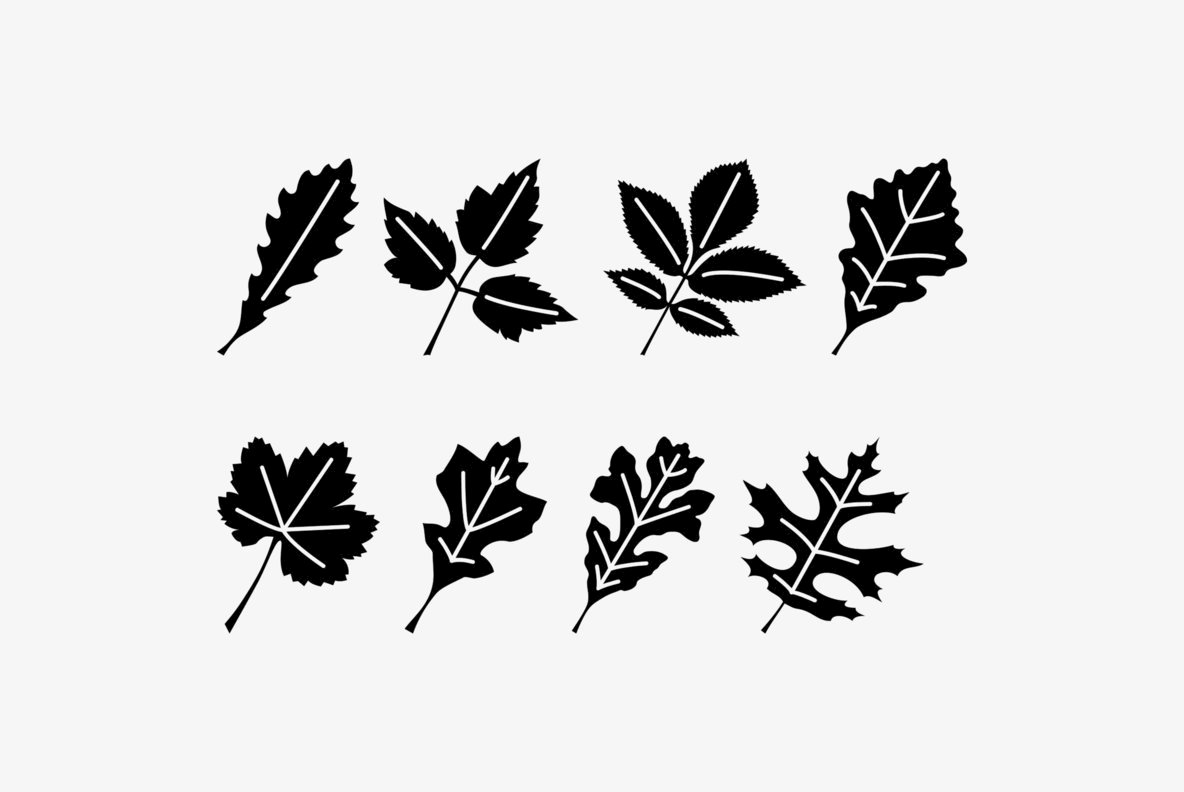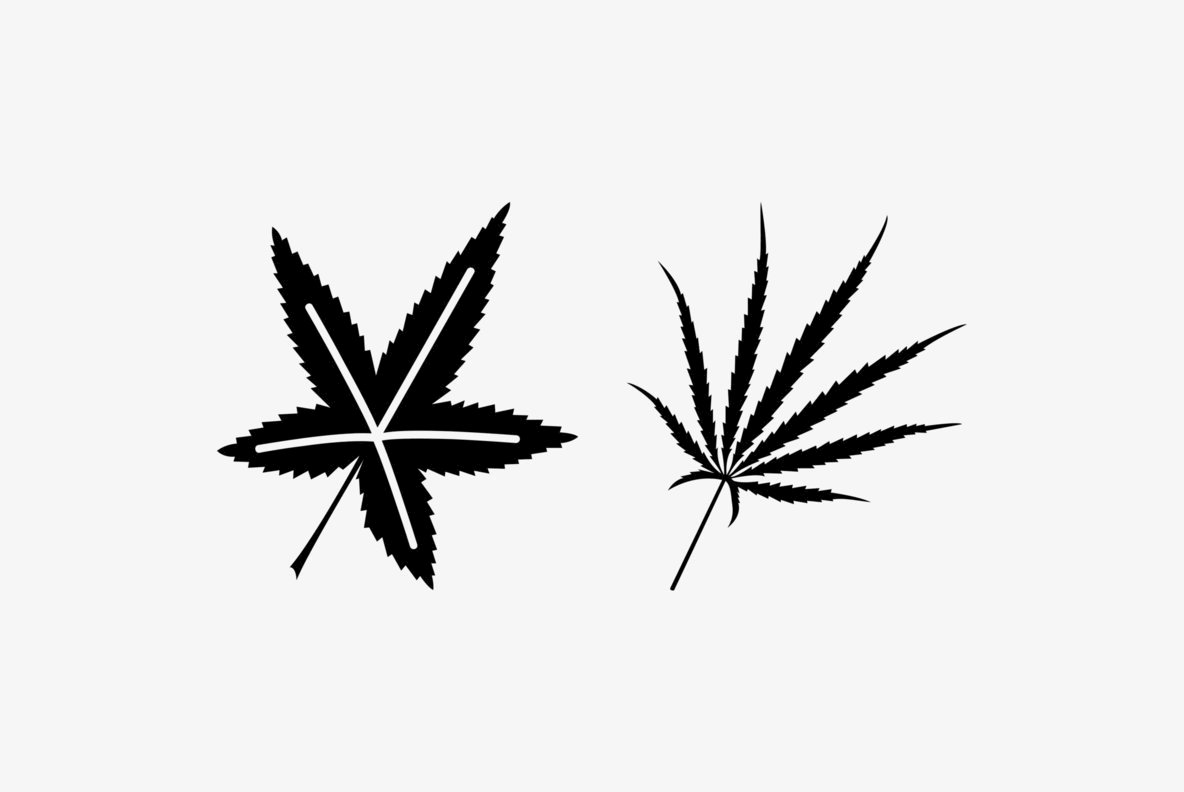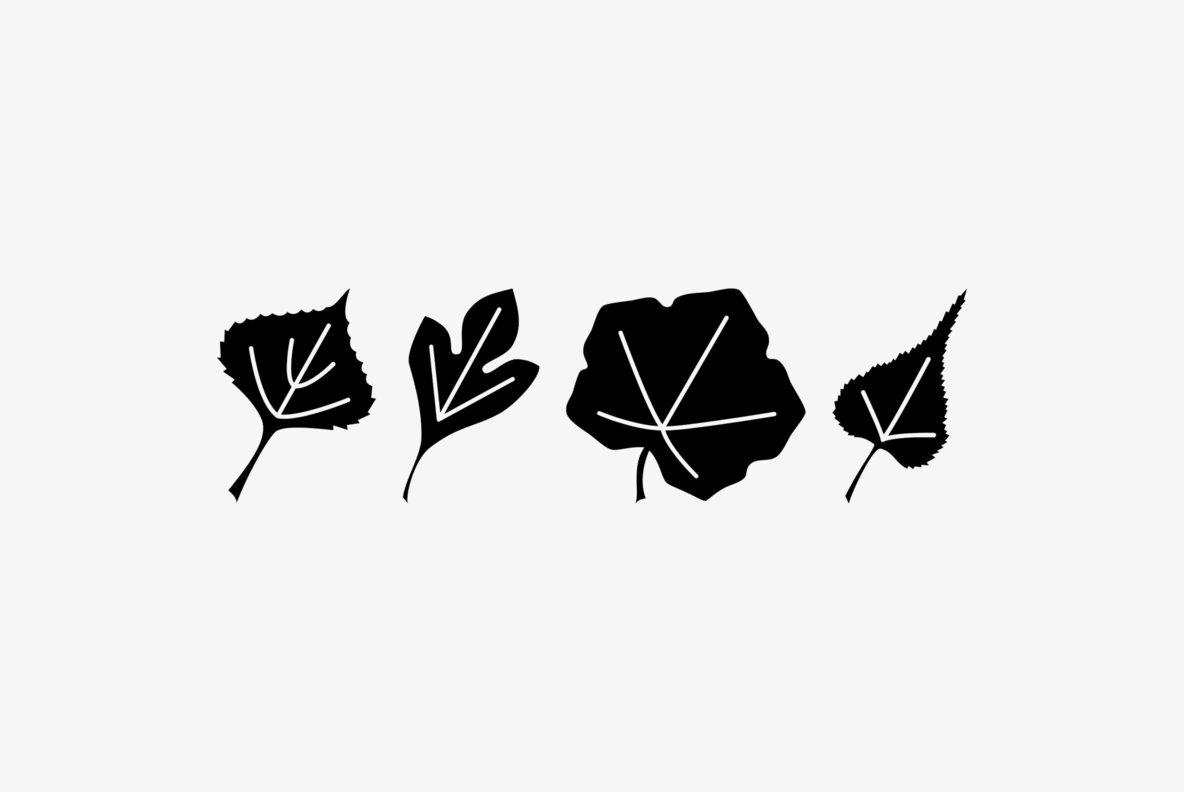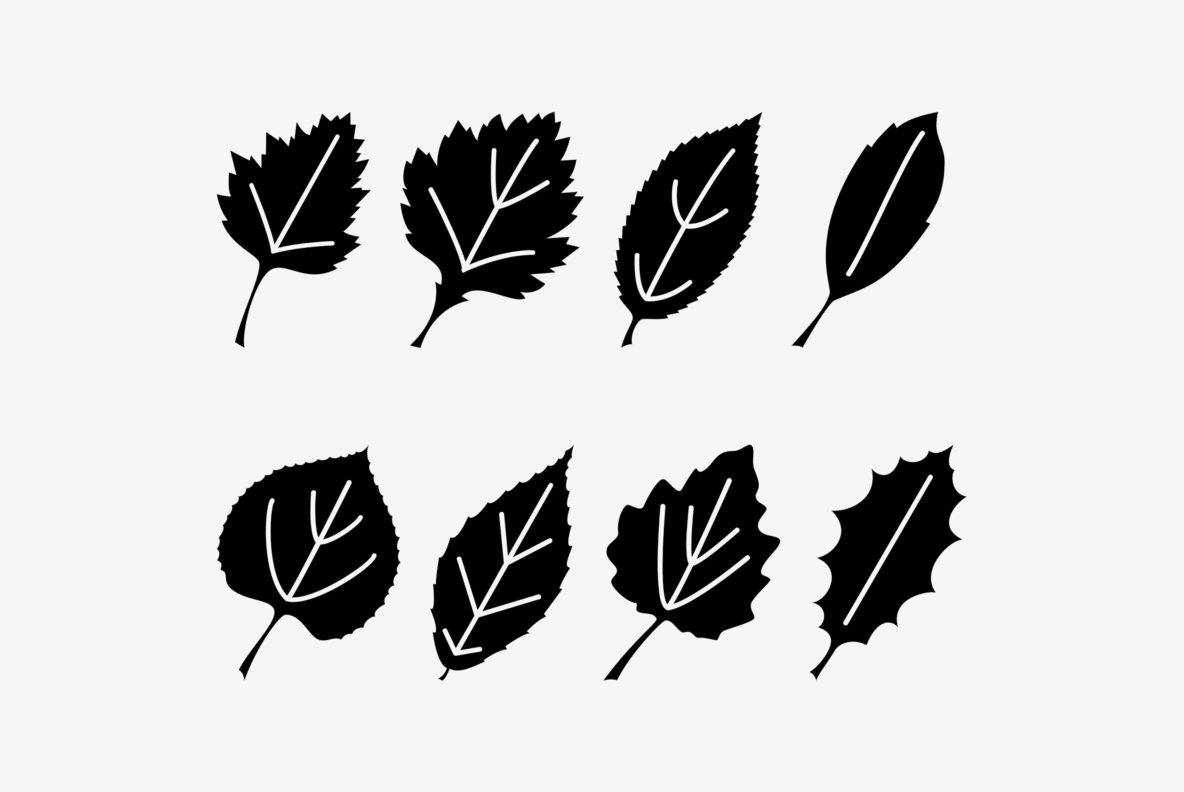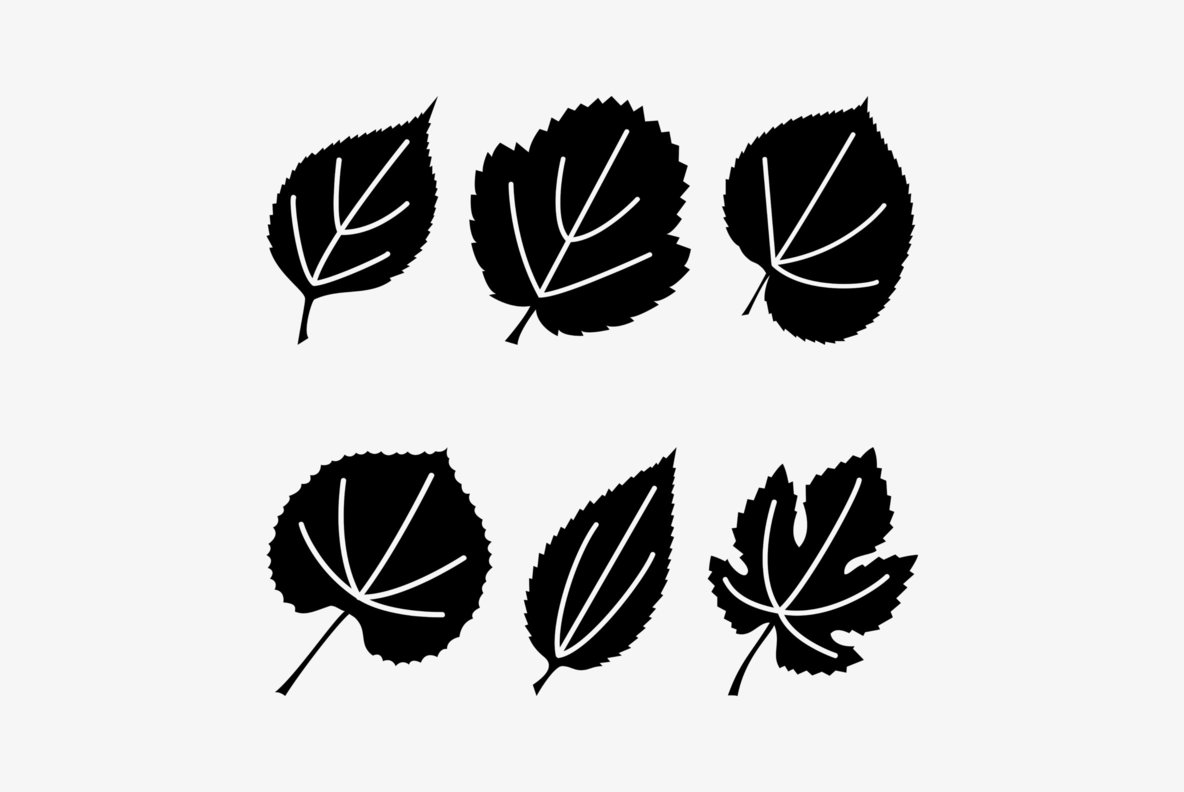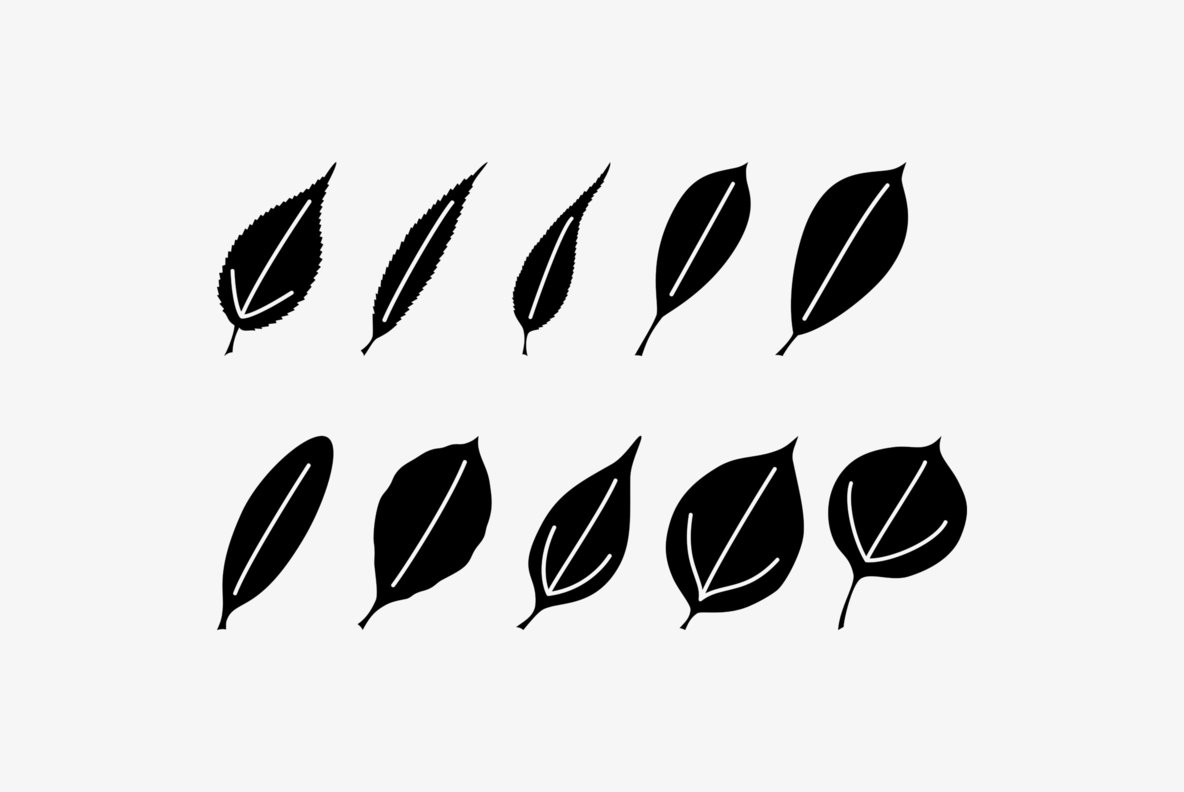
Leaf Assortment Font
Leaf Assortment
Delve into a world of botanical beauty with the Leaf Assortment, a comprehensive collection of 94 distinct leaf designs. This array offers versatility and elegance to any design project, perfect for graphic designers seeking natural inspiration. From intricate veins of ginkgo leaves to the broad expanse of philodendron, each design is a study in organic form and function.Leaf Assortment: A Collection of 94 Unique Designs